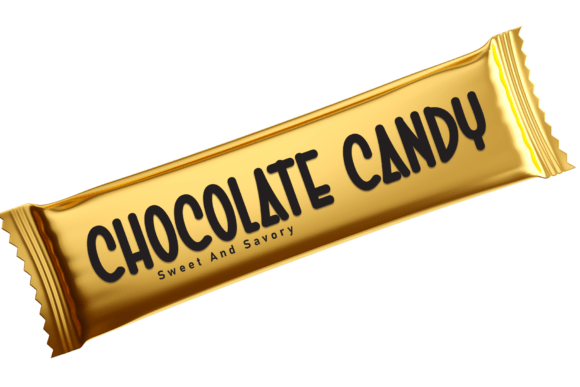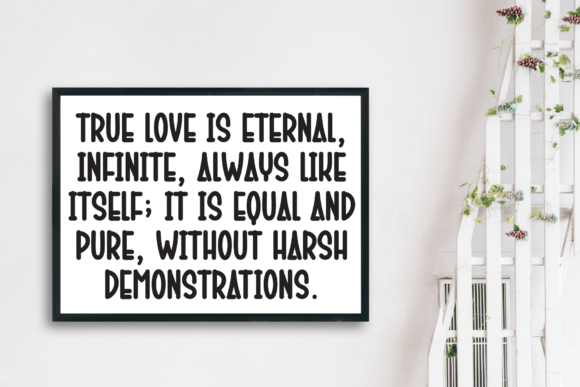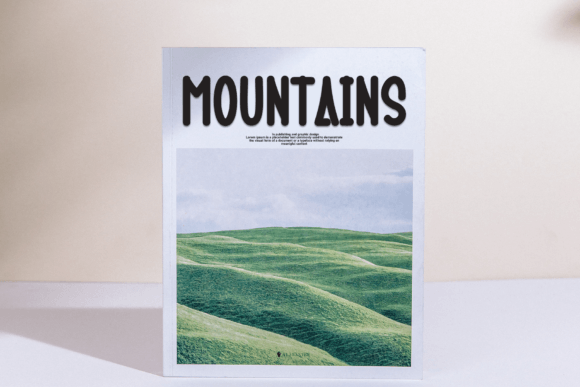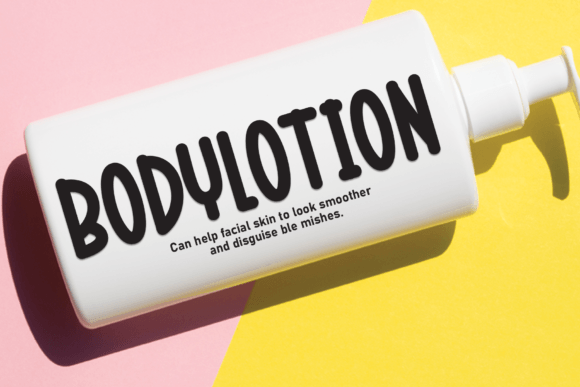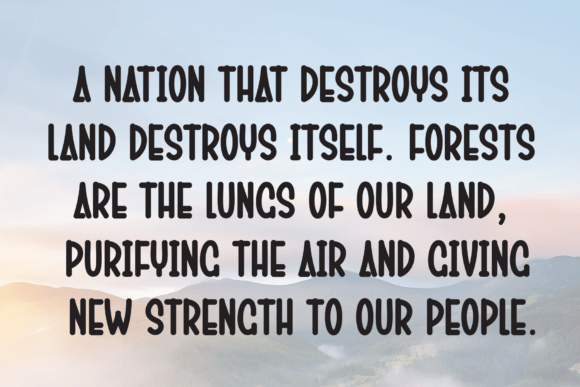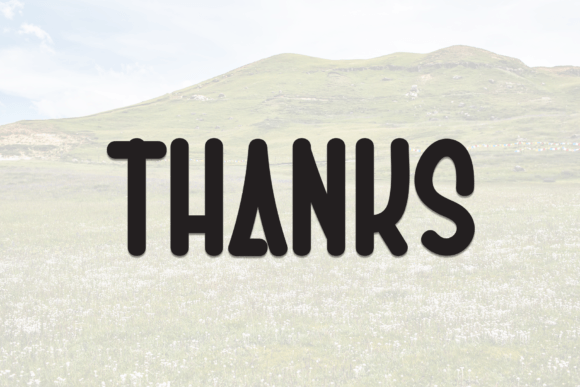
Introducing Creative Highland: The Sweet and Friendly Handwritten Font
Are you tired of using the same old fonts in your designs? Look no further than Creative Highland, a beautiful and unique handwritten font that’s perfect for adding a personal touch to your projects. With its natural and friendly style, Creative Highland is incredibly versatile and can be used in a wide range of designs, from rustic and vintage to modern and playful.
The Characteristics of Creative Highland
Creative Highland is a sweet and friendly handwritten font that’s designed to make your designs stand out. Its unique style is characterized by:
- Natural and organic feel: Creative Highland has a distinctly handmade feel that’s perfect for designs that require a personal touch.
- Unique lettering: Each letter in the Creative Highland font is carefully crafted to ensure that your designs look fresh and original.
- Highly legible: Despite its unique style, Creative Highland is incredibly easy to read, making it perfect for use in a wide range of designs.
The Benefits of Using Creative Highland
So why choose Creative Highland for your designs? Here are just a few benefits of using this beautiful font:
- Versatility: Creative Highland can be used in a wide range of designs, from rustic and vintage to modern and playful.
- Uniqueness: With its unique lettering and natural style, Creative Highland is the perfect way to add a personal touch to your designs.
- Ease of use: Creative Highland is incredibly easy to use, even for designers who are new to handwriting fonts.
Ideas for Using Creative Highland
So what can you create with Creative Highland? The possibilities are endless, but here are a few ideas to get you started:
- Invitations and greeting cards: Add a personal touch to your invitations and greeting cards with Creative Highland.
- Branding and packaging: Use Creative Highland to create unique and memorable branding and packaging for your business.
- Signs and posters: Create eye-catching signs and posters with Creative Highland.
- Digital products: Use Creative Highland to add a personal touch to your digital products, such as ebooks and printables.
Tips for Getting the Most Out of Creative Highland
Here are a few tips for getting the most out of Creative Highland:
- Experiment with different colors: Creative Highland looks great in a wide range of colors, so don’t be afraid to experiment and find the perfect hue for your design.
- Pair it with other fonts: Creative Highland pairs well with a wide range of fonts, so try combining it with other fonts to create a unique look.
- Use it in combination with images: Creative Highland looks great in combination with images, so try using it to add a personal touch to your photos and illustrations.